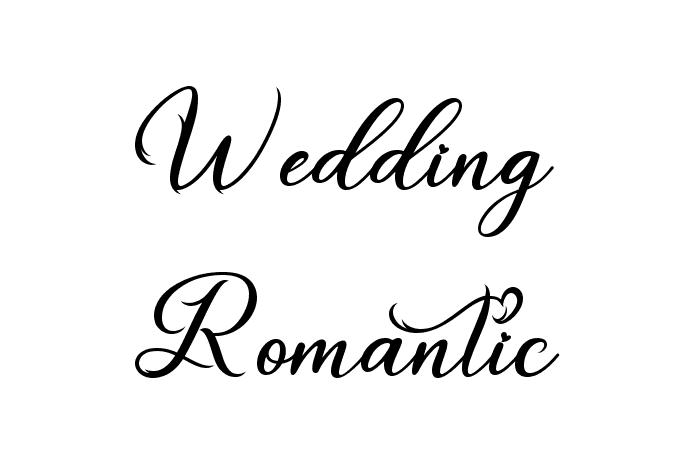
Beautyful Housing Font
Beautyful Housing Font is a new script with modern style designed to create beautiful typography for your projects. It is the best choice for creating eye catching logos, business card, branding and more .
Typeface classification Handwritten,Script